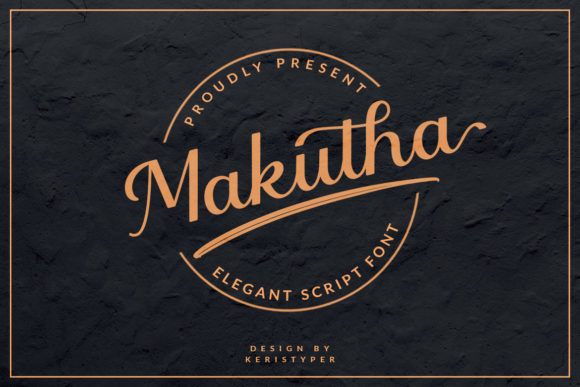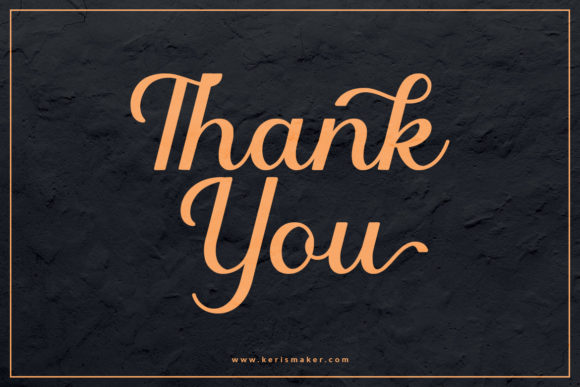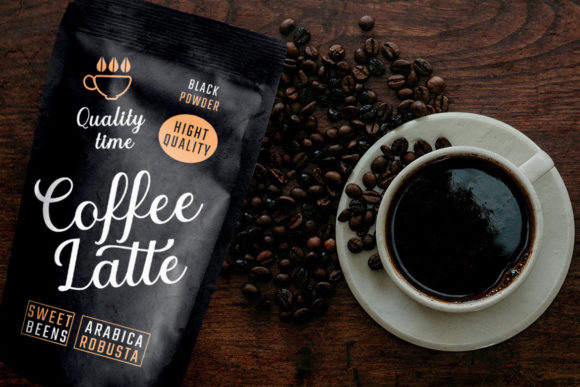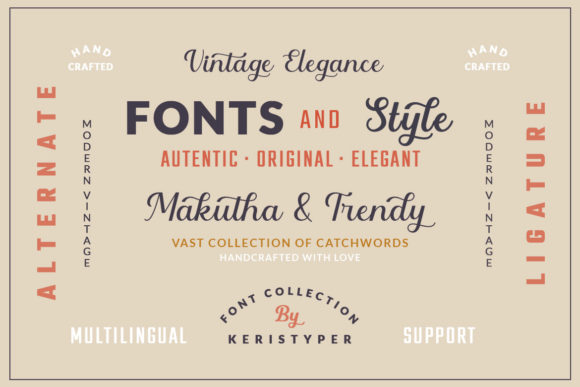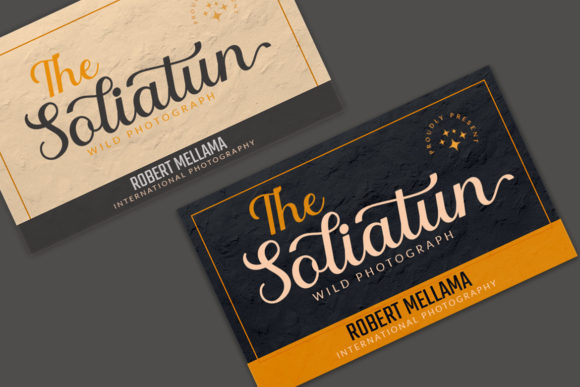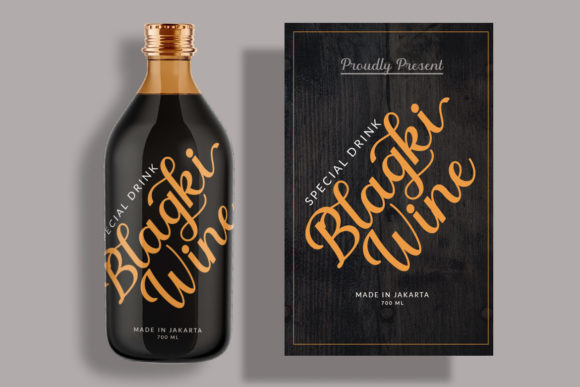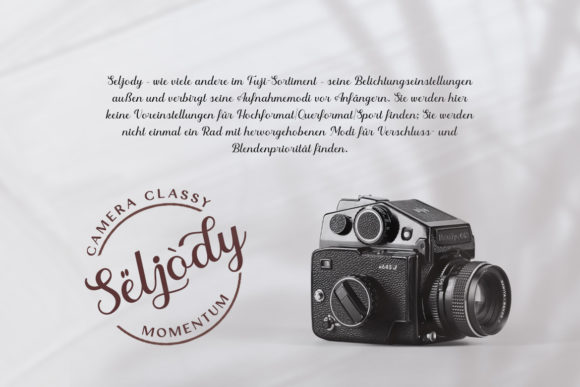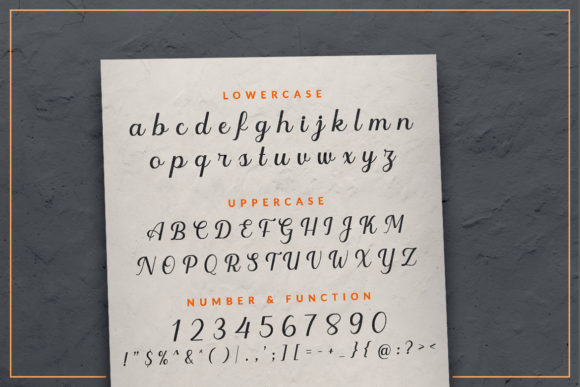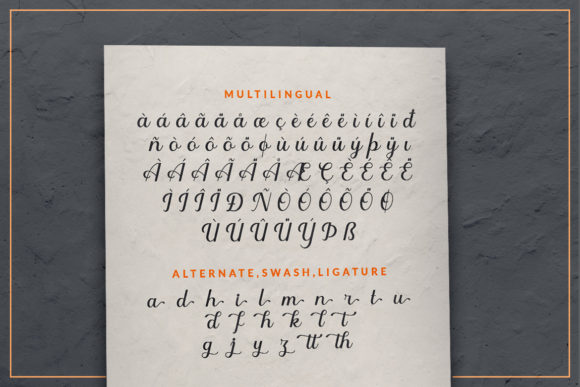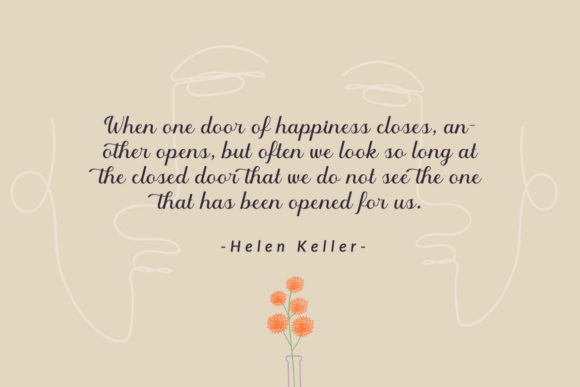
Makutha Font
Makutha is an elegant script font. Designed primarily as a captivating handcraft with style, this typeface is easy on the eyes and excels at creating captivating headlines or branding.
Makutha is PUA encoded which means you can access all of the glyphs and swashes with ease!